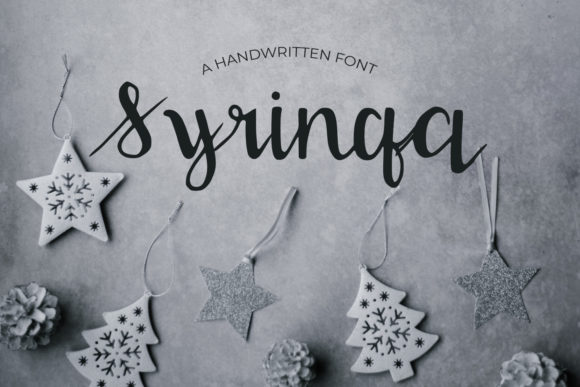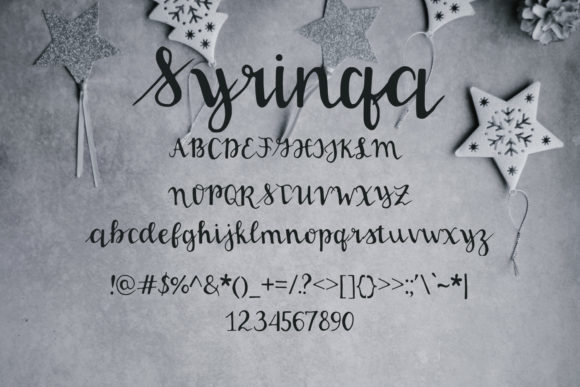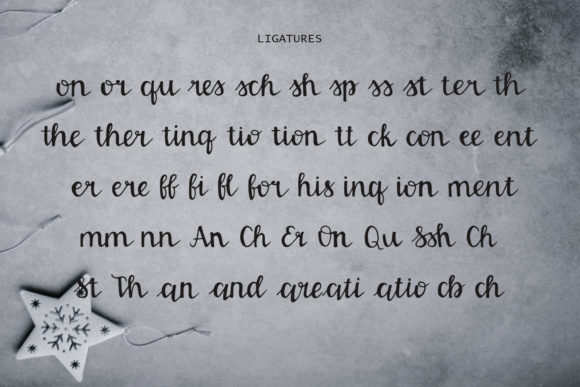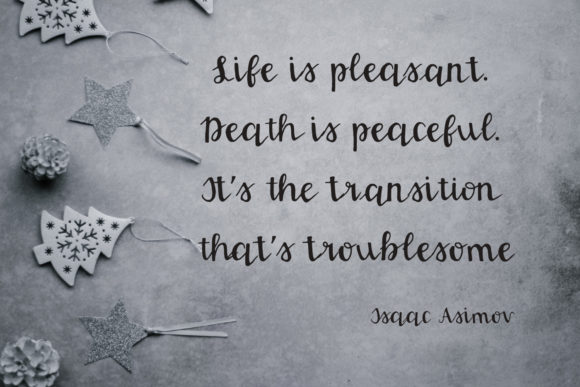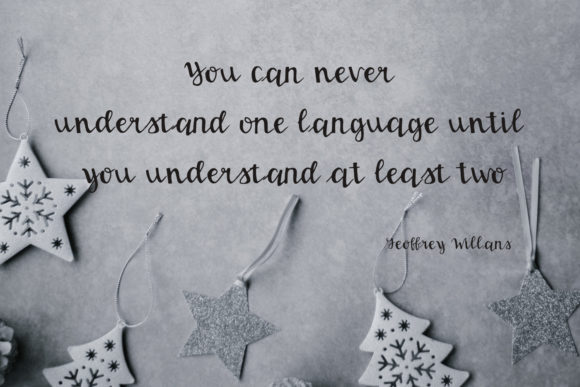
Syringa Font
About Syringa Font
Syringa is a stylish and delicate font. It has a clean, thin and smooth vibe and it will be a hit for any design that you want to add it to.